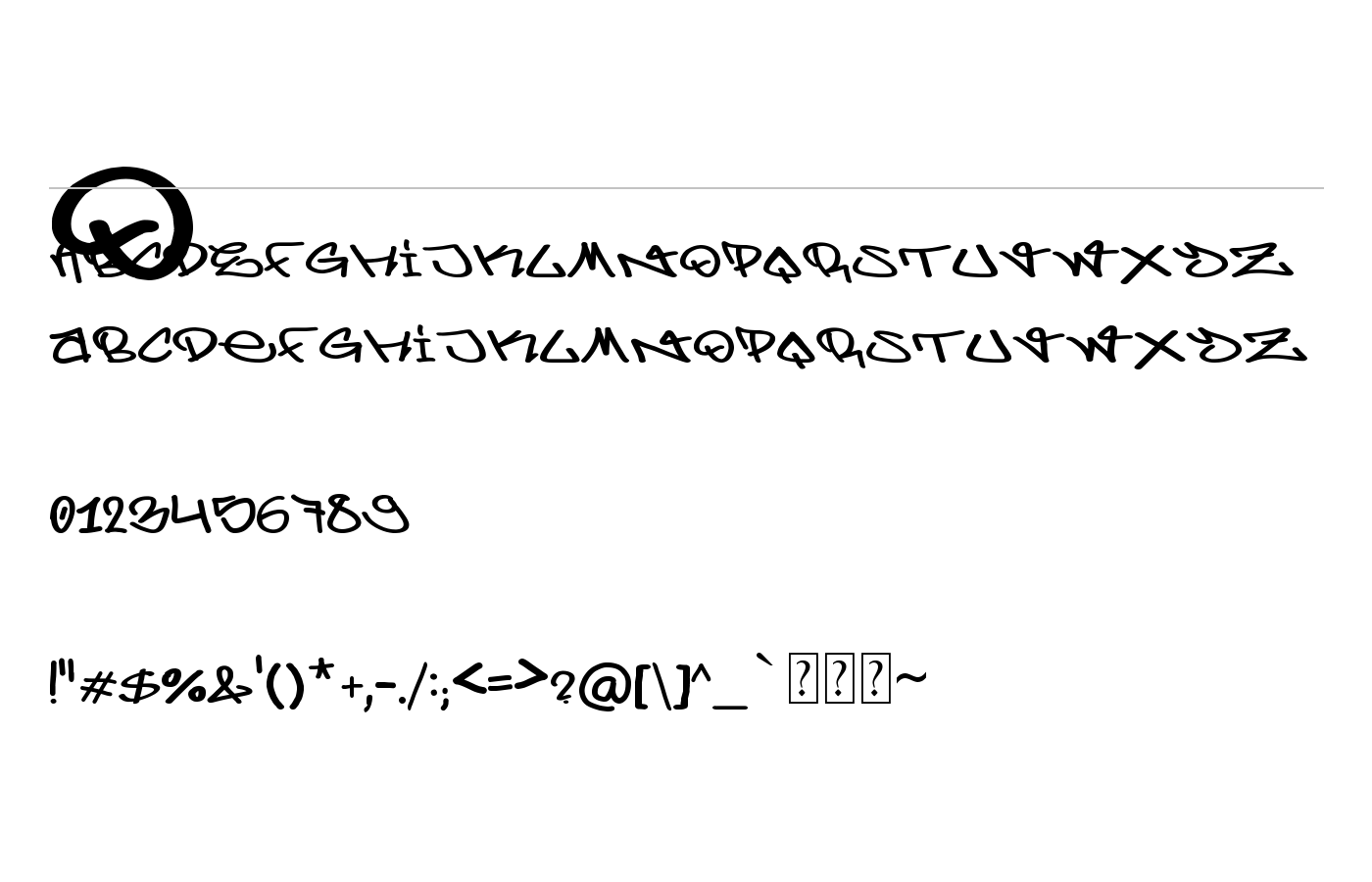
Berlin Graffiti Font is a lively and expressive sans serif typeface that captures the raw, urban energy of street art. Its irregular, hand-drawn letterforms with dynamic strokes give it a playful and edgy personality, making it ideal for creative projects that want to evoke a youthful, rebellious, or casual vibe. This font works best for logos, posters, and designs seeking a bold, artistic flair that stands out with personality and informality.
Berlin Graffiti Font
About Berlin Graffiti Font